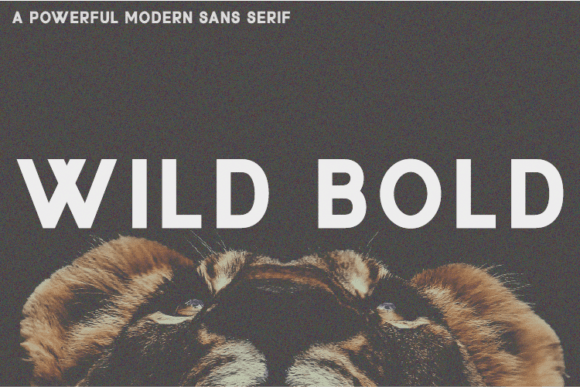
Prepare to be captivated by the Wild Bold font, a striking sans serif creation from Huntype. With its crisp lines and elegant curves, this font embodies a modern and classy aesthetic that will elevate your designs to new heights.
Dive into the world of creative possibilities with Wild Bold. Its versatility knows no bounds, making it the perfect choice for an array of projects, from eye-catching logos and branding to stunning invitations and social media graphics. Unleash your inner artist and let Wild Bold bring your vision to life.
Imagine crafting a Christmas logo that radiates warmth and cheer. With Wild Bold as your font, you can effortlessly convey the magic of the season. Its bold strokes and clean lines will ensure your logo stands out, inviting customers to embrace the festive spirit.
Step into the world of Wild Bold and unlock a world of creative expression. This font is more than just a collection of letters; it's an invitation to let your imagination run wild. Experience the joy of creating designs that resonate with your audience, leaving a lasting impression that speaks volumes.